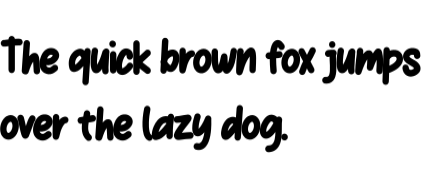
Jusya Font: Elevate Your Fashion Forward Designs with Elegance and Practicality
In the realm of typography, few fonts manage to strike a balance between elegance and practicality as effortlessly as Jusya. Specifically crafted for fashion-forward designs, Jusya has emerged as a versatile typography solution that is redefining the aesthetic landscape of garments, t-shirts, and a myriad of other design projects. This article aims to provide an in-depth exploration of Jusya, highlighting its features, benefits, and the unique value it brings to designers and brands seeking to elevate their visual identity.
Introducing Jusya: A Typography Solution for the Fashion Forward
Jusya is not just another font; it’s a meticulously crafted typography solution designed to meet the demands of contemporary fashion design. Whether you’re working on garments, t-shirts, or any other fashion-related project, Jusya offers a blend of sophistication and trendiness that is hard to find elsewhere. Its design is centered around providing a fresh perspective to fashion design, making it an ideal choice for designers and brands looking to make a statement.
Versatility and Compatibility: A Key Strength of Jusya
One of the standout features of Jusya is its versatility. This font is not limited to specific design projects; rather, it boasts a wide range of applications across various designs and software platforms. Whether you’re working on digital designs or print materials, Jusya seamlessly integrates, ensuring that your projects look cohesive and professionally executed.
The Perfect Blend of Elegance and Practicality
Jusya encapsulates a unique blend of elegance and practicality, making it a perfect choice for enhancing trendy and contemporary product designs. Its characters are designed to convey a sense of sophistication and style, which is essential for brands and designers aiming to create a lasting impression on their audience.
The elegance of Jusya is evident in its clean lines, balanced proportions, and attention to detail. Each character is crafted to contribute to a cohesive and visually appealing typographic experience. At the same time, Jusya’s practicality shines through in its readability and versatility, making it suitable for a wide range of applications, from headlines and titles to body text.
Unique Charm and Universally Appealing Aesthetics
Jusya brings a fresh perspective to design, invigorating your creations with its distinct character and style. Its unique charm lies in its ability to blend seamlessly with various design aesthetics, from minimalist and modern to vintage and eclectic. This versatility in design compatibility ensures that Jusya can enhance any project, making it a valuable addition to any designer’s font collection.
The universally appealing aesthetics of Jusya make it an excellent choice for brands looking to establish a strong visual identity. Its characters are designed to resonate with a wide audience, making it easier for brands to connect with their target market through typography.
Enhancing Trendy and Contemporary Product Designs
Jusya is particularly well-suited for enhancing trendy and contemporary product designs. Its modern aesthetic and stylish characters make it an ideal choice for brands and designers looking to create visually appealing and fashion-forward designs.
Whether you’re working on designs for garments, accessories, or promotional materials, Jusya can help elevate your projects to the next level. Its ability to convey a sense of style and sophistication makes it a valuable tool for designers seeking to create designs that stand out in a crowded market.
Why Choose Jusya for Your Design Needs?
There are several reasons why Jusya stands out as a typography solution for fashion-forward designs:
- Versatility: Jusya is designed to work across various designs and software platforms, making it a versatile choice for designers.
- Elegance and Practicality: Jusya strikes the perfect balance between elegance and practicality, making it suitable for a wide range of design applications.
- Unique Charm: Jusya brings a fresh perspective to design, offering a distinct character and style that can enhance any project.
- Universally Appealing Aesthetics: Jusya’s characters are designed to resonate with a wide audience, making it an excellent choice for brands looking to establish a strong visual identity.
Jusya is more than just a font; it’s a comprehensive typography solution designed to meet the demands of contemporary fashion design. Its versatility, elegance, practicality, unique charm, and universally appealing aesthetics make it an ideal choice for designers and brands seeking to elevate their visual identity.
Whether you’re working on fashion-forward designs for garments, t-shirts, or any other project, Jusya offers a fresh perspective and a distinct style that can help take your designs to the next level. With Jusya, you can create visually appealing and stylish designs that resonate with your audience and set your brand apart in a competitive market.